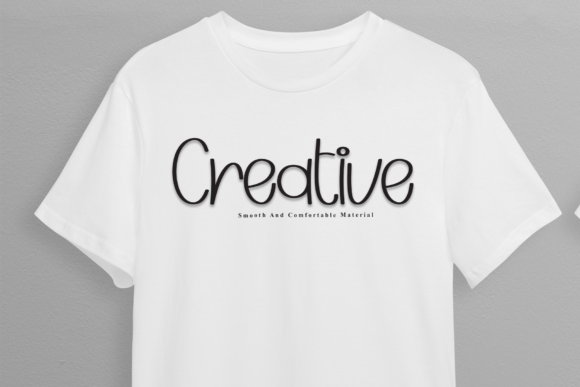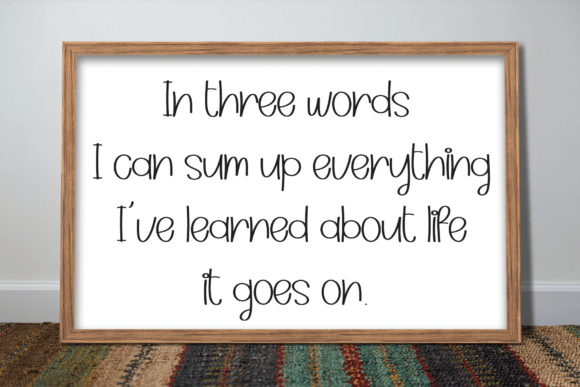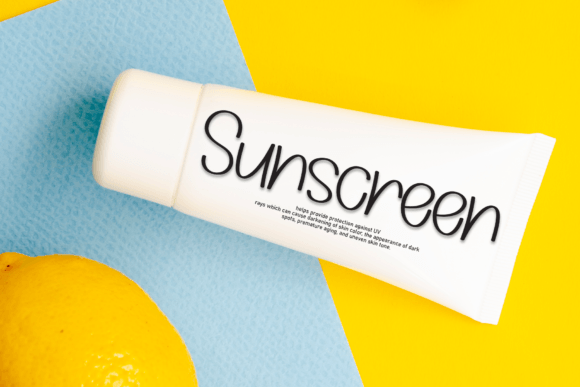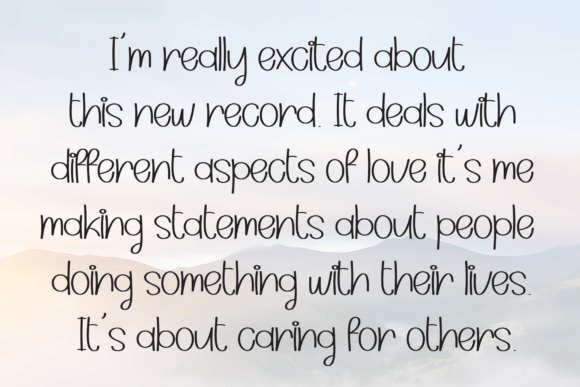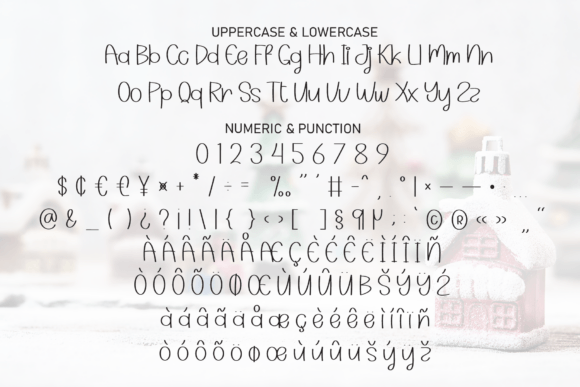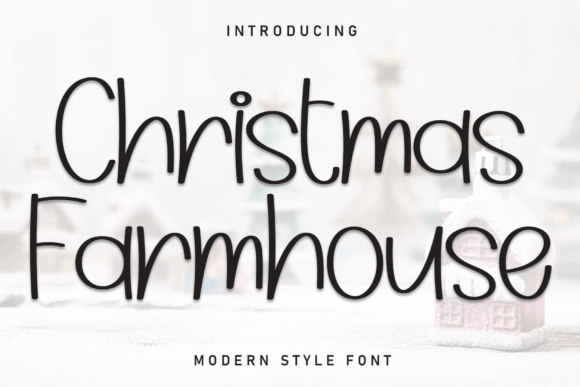
Introducing Christmas Farmhouse Font: A Charming Handwritten Delight for the Holiday Season
As the holiday season approaches, designers and crafters are on the lookout for the perfect font to add a touch of warmth and festivity to their projects. Look no further than **Christmas Farmhouse**, a charming handwritten font that captures the cozy, festive feel of the season. With its playful, flowing letters, this delightful font is perfect for holiday decorations, greeting cards, and anything that needs a warm, cheerful touch.
The Charm of Christmas Farmhouse Font
Christmas Farmhouse Font is a beautifully crafted handwritten font that exudes a sense of rustic charm and holiday cheer. Its unique, flowing letters are designed to evoke the feeling of a cozy winter wonderland, complete with snowflakes, hot chocolate, and crackling fires. Whether you’re designing holiday cards, decorations, or gift tags, this font is sure to add a touch of magic to your projects.
Christmas Farmhouse Font is the perfect addition to any holiday project. Here are just a few ideas for how you can use this delightful font:
- Holiday Cards**: Add a personal touch to your holiday cards with Christmas Farmhouse Font. Whether you’re sending a formal greeting or a casual note to friends and family, this font is sure to make your cards stand out.
- Decorations**: Use Christmas Farmhouse Font to add a festive touch to your holiday decorations. From garlands and banners to gift tags and gift wrap, this font is perfect for creating a cohesive and charming holiday display.
- Social Media Graphics**: Add a touch of holiday cheer to your social media graphics with Christmas Farmhouse Font. Whether you’re creating a festive Facebook post or a holiday-themed Instagram story, this font is sure to get you in the holiday spirit.
- Digital Papers**: Create your own digital papers with Christmas Farmhouse Font and use them to create a variety of holiday projects, from planners and journals to scrapbook pages and gift tags.
Why Choose Christmas Farmhouse Font?
So why choose Christmas Farmhouse Font for your holiday projects? Here are just a few reasons why this font stands out:
- Unique and Handwritten**: Christmas Farmhouse Font is a unique and handwritten font that adds a personal touch to any project.
- Playful and Festive**: This font is playful and festive, making it perfect for holiday projects that need a touch of cheer.
- Easy to Read**: Despite its playful nature, Christmas Farmhouse Font is easy to read, making it perfect for use in a variety of projects, from holiday cards to digital papers.
- Versatile**: Christmas Farmhouse Font is a versatile font that can be used in a variety of projects, from formal holiday cards to casual social media graphics.
Tips for Using Christmas Farmhouse Font
Here are a few tips for using Christmas Farmhouse Font in your holiday projects:
- Pair with Other Fonts**: Christmas Farmhouse Font pairs well with other fonts, such as serif and sans-serif fonts. Experiment with different font combinations to find the perfect look for your project.
- Use in Combination with Images**: Christmas Farmhouse Font looks great in combination with images, such as holiday illustrations and photographs. Use this font to add a touch of personality to your images.
- Experiment with Colors**: Christmas Farmhouse Font looks great in a variety of colors, from traditional holiday colors like red and green to more modern colors like gold and silver. Experiment with different colors to find the perfect look for your project.
Christmas Farmhouse Font is a charming handwritten font that captures the cozy, festive feel of the holiday season. With its playful, flowing letters, this delightful font is perfect for holiday decorations, greeting cards, and anything that needs a warm, cheerful touch. Whether you’re a designer or crafter, Christmas Farmhouse Font is sure to become a favorite in your holiday project toolkit.